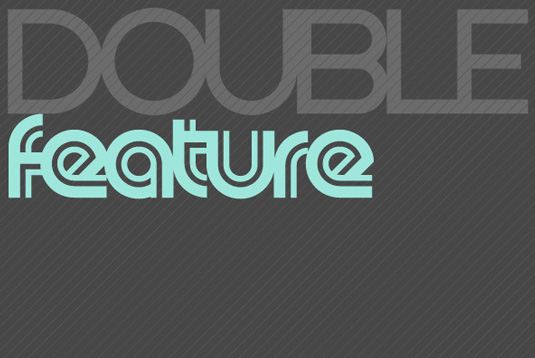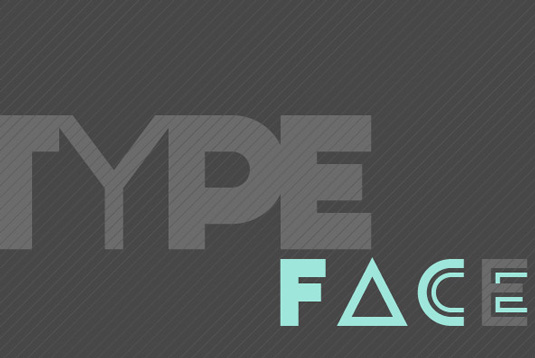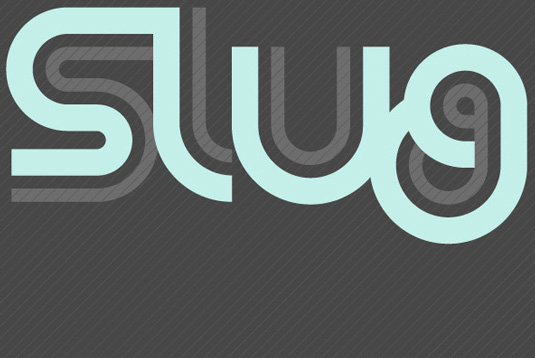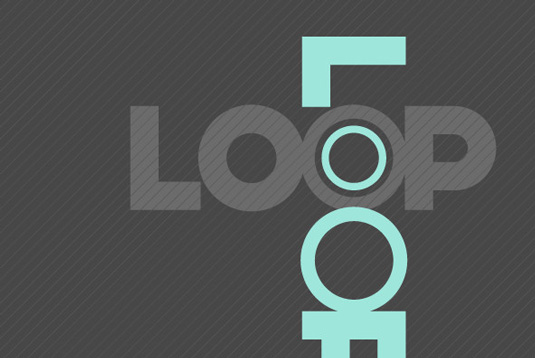
Font of the day: Slug
Slug by FaceType
Today's font of choice is this retro-style design Slug, by Vienna based foundry Facetype. The team describe the font online: "Slug is a clean, geometric font, like the one widely used in the 1970s. To give the user a wide range of possibilities, we made not only a single and a double version, but also provided a bicolor solution: by combining bicolor A and B, you will create astounding multicolored pieces of typography."